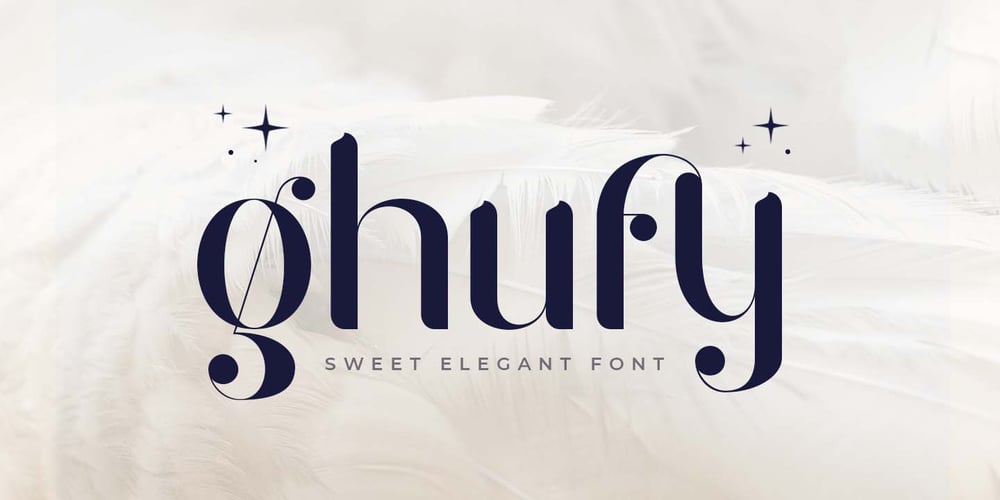
Ghufy Style Font Family was designed by Zamroni Hamzah and published by Sensatype Studio. Ghufy Style contains 1 styles and family package options. Ghufy is A Sweet Elegant Serif font perfect for unique beauty project and Another Design needsA New font that we created special for Unique branding needs, with unique style that ready to add value of your brand. It’s so nice to leverage designer or product owner that need solutions to make their design look more unique, sweet and elegant.Ghufy Sweet Elegant Display font ready with: Lowercase and Uppercase characters Numbers and Punctuations Preview as a inspirations that you can do with Ghufy font Available for PC and Mac Wish you enjoy our font.